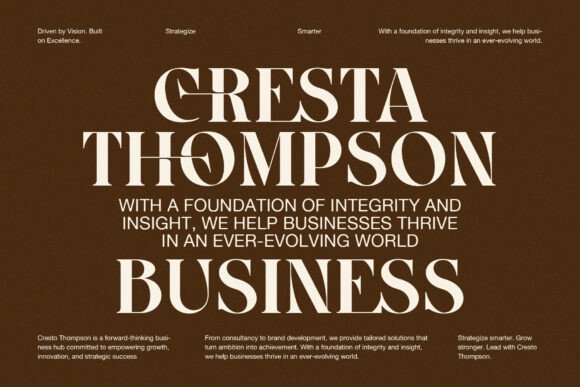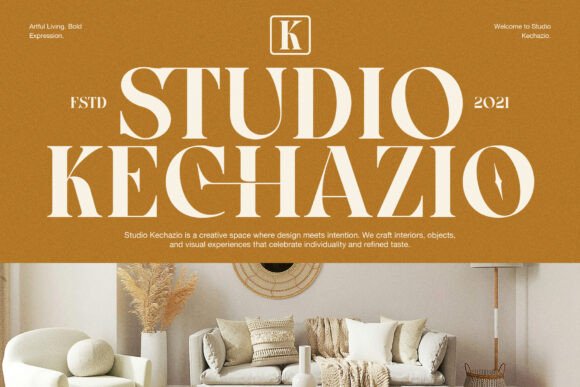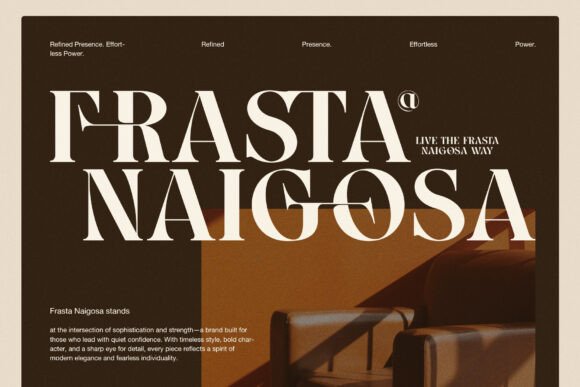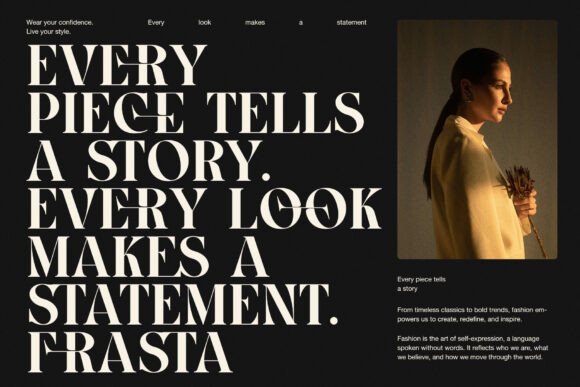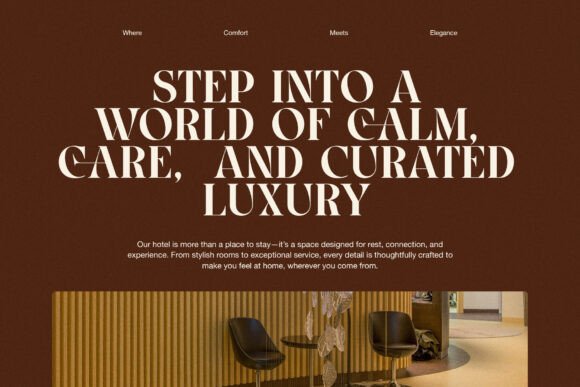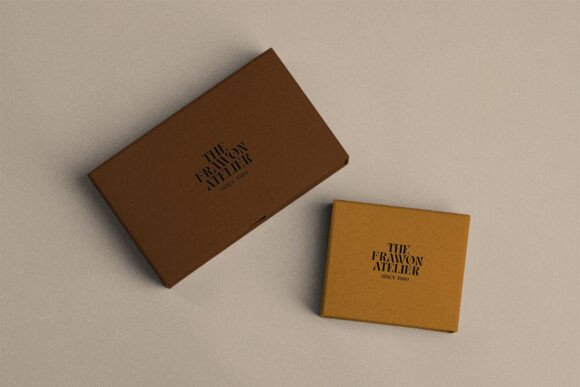
Introducing Groch Elegant Serif Font: Elevate Your Designs with Sophistication
Have you ever been in the middle of a design project, and suddenly, you’re stuck on finding the perfect font? I recall a particularly challenging project where my client requested a luxurious feel for their high-end boutique brand. The design had to convey elegance, sophistication, and a touch of modernity. After hours of searching, I stumbled upon the **Groch Elegant Serif Font**, and it was love at first sight! ✨
In this article, we’ll dive into the world of Groch Elegant Serif Font, exploring its features, uses, and what makes it a standout choice for designers, crafters, and creative hobbyists.
A Closer Look at Groch Elegant Serif Font
Groch Elegant Serif Font is a refined and contemporary serif typeface designed to elevate your projects with sophistication and style. It combines timeless serif characteristics with a modern twist, making it perfect for creating memorable, high-end designs.
Crafted with meticulous attention to detail, Groch Elegant exudes elegance, making it ideal for use in:
- Luxury branding
- Chic boutiques
- Upscale websites
- High-quality editorial layouts
What I Love About Groch Elegant Serif Font
Here’s what makes Groch Elegant Serif Font a favorite among designers:
- ✨ Elegant and refined design: Groch Elegant features a harmonious blend of traditional serifs and clean, modern lines.
- ✅ High readability: The font’s unique character set makes it well-suited for a wide range of applications, from fashion and beauty to food and lifestyle industries.
- ✅ Versatility: Groch Elegant is perfect for logos, product packaging, advertisements, and more.
While Groch Elegant Serif Font is an excellent choice, there are a few things to keep in mind:
- ⚠️ Glyph limitations: Some users have reported that the font could benefit from a more extensive glyph set.
- 🤔 Kerning adjustments: As with any font, you may need to make adjustments to the kerning to ensure optimal spacing.
- Experiment with OpenType features, such as ligatures and stylistic alternates, to add visual interest to your design.
The Backstory Behind Groch Elegant Serif Font
The story behind Groch Elegant Serif Font begins with a passion for typography and a desire to create a font that exudes elegance and sophistication. The designer, inspired by the world of luxury branding and high-end fashion, set out to craft a font that would meet the needs of designers seeking a refined and contemporary serif typeface.
| Font Name | Groch Font |
| Author | Graphicxell |
| What is Groch Elegant Serif Font best suited for? | Groch Elegant Serif Font is perfect for luxury branding, chic boutiques, upscale websites, and high-quality editorial layouts. |
| Does Groch Elegant Serif Font come with OpenType features? | Yes, Groch Elegant Serif Font features a range of OpenType features, including ligatures and stylistic alternates. |
| Is Groch Elegant Serif Font easy to read? | Yes, Groch Elegant Serif Font is designed with readability in mind, making it perfect for body text and editorial layouts. |